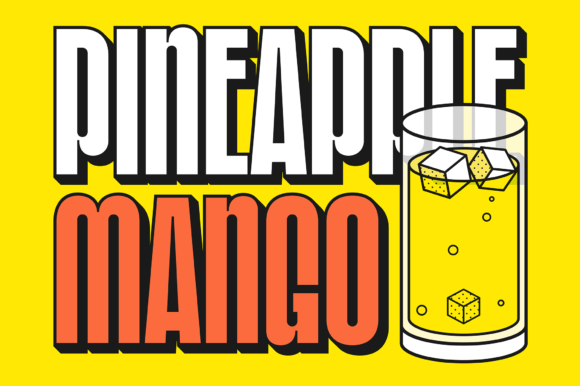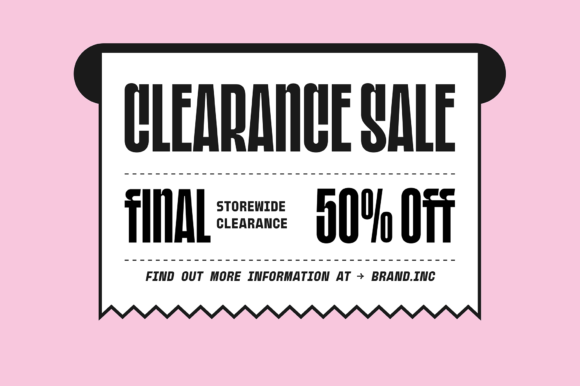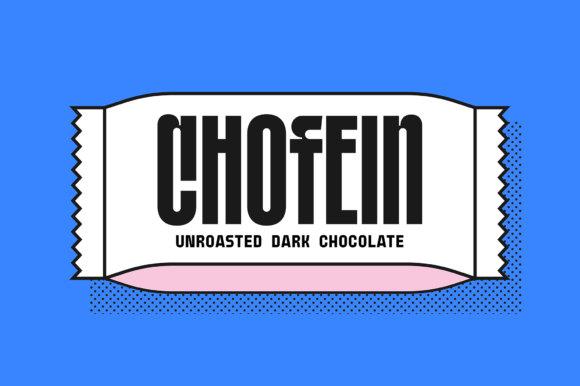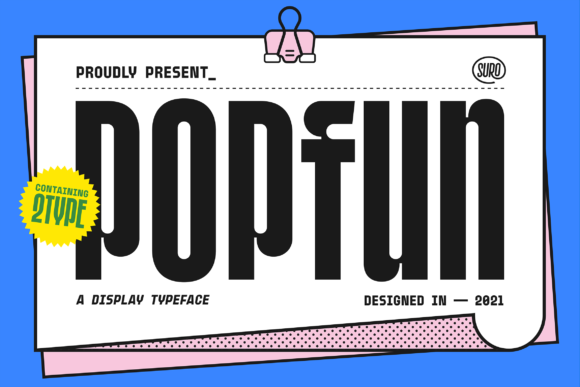
Introduction to Popfun Font
Popfun is a fun, playful and cool display font.
This original look will appeal to a wide range of crafty ideas, from letterheads and titles, to stationery .
Popfun Font offers exceptional quality and versatility, making it a valuable addition to your design toolkit. Whether you’re creating for personal projects or commercial use, Popfun Font delivers professional results.